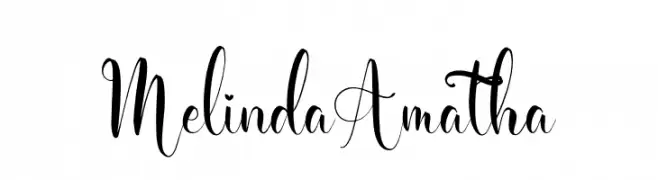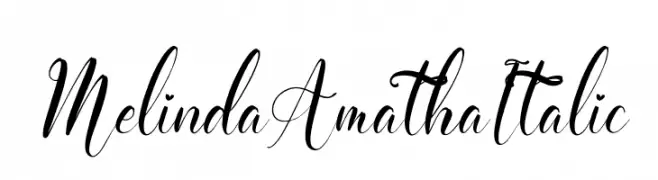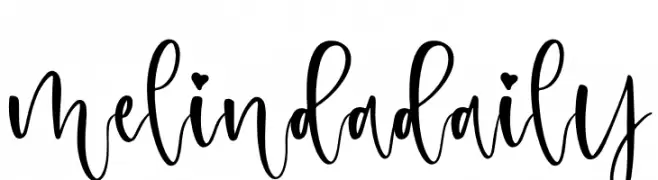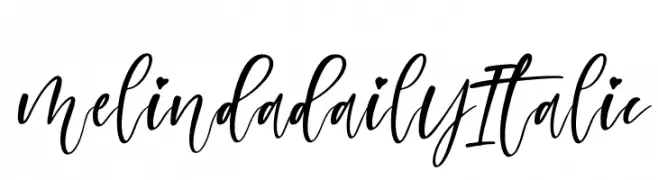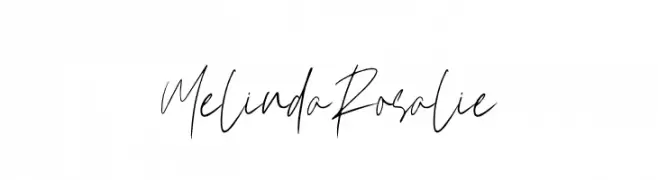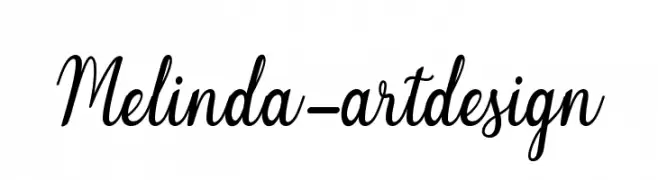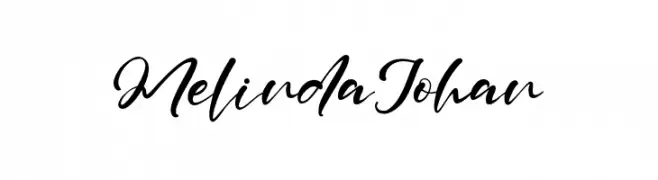
An elegant, flowing script font with ornate flourishes and decorative elements.
A graceful, high-contrast script font with flowing, connected characters.
A graceful script font with smooth, connected strokes and a handwritten appearance.
A playful, handwritten font with dynamic strokes and whimsical elements.
A dynamic handwritten font with fluid, cursive strokes and a modern artistic flair.
A cursive, handwritten font with elegant, flowing letters.
A lively, expressive handwritten font with fluid, dynamic strokes.
A classic and elegant script font with flowing, connected letterforms.
A modern, elegant script font with flowing, interconnected characters.
An elegant script font with fluid, cursive strokes and a refined, handwritten style.